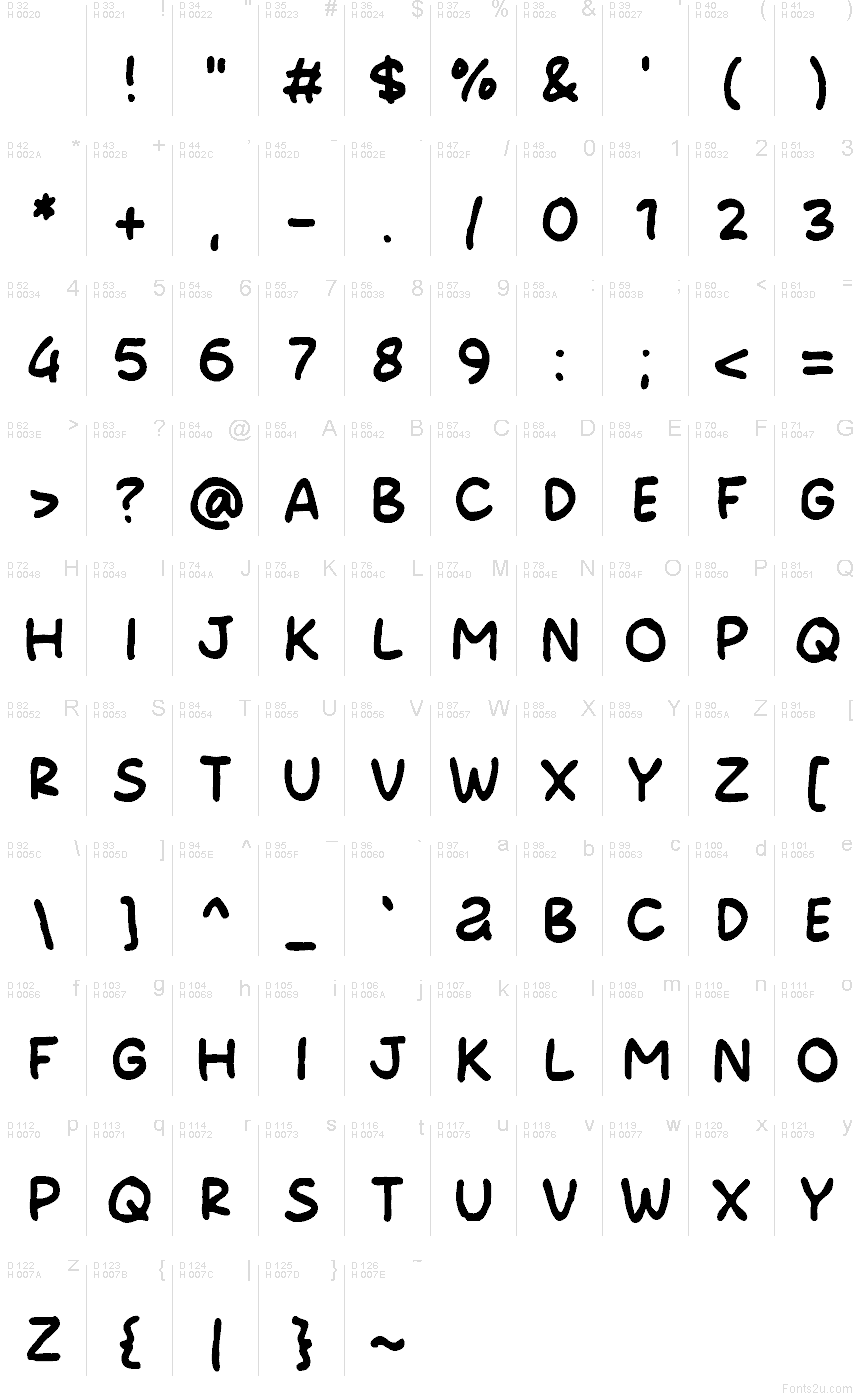
Nicess Coffee by MJType is a free comic display font with a relaxed, hand-drawn bounce. The letters are thick and rounded with soft, wobbly edges and an almost marker-made feel, giving the font a casual, friendly rhythm that leans more playful than polished.
It fits packaging for cafe brands, kids' book covers, cheerful poster headlines, menu boards, and social media title cards where a warm handwritten mood matters. As a free font, Nicess Coffee also works well for short logos or monograms, because the chunky rounded letters keep even brief words feeling lively and human.